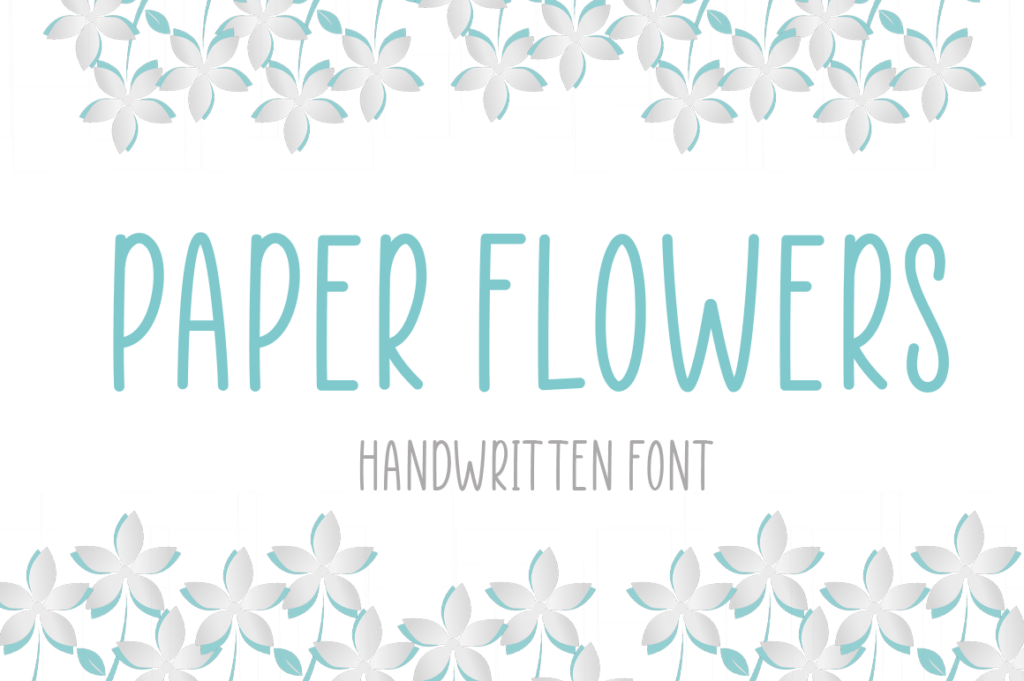
Paper Flowers Handwritten Font
Paper Flowers Handwritten Font is a sweet and friendly handwritten font. Its natural and unique style makes it incredibly fitting to a large pool of designs. The only limit is your imagination!